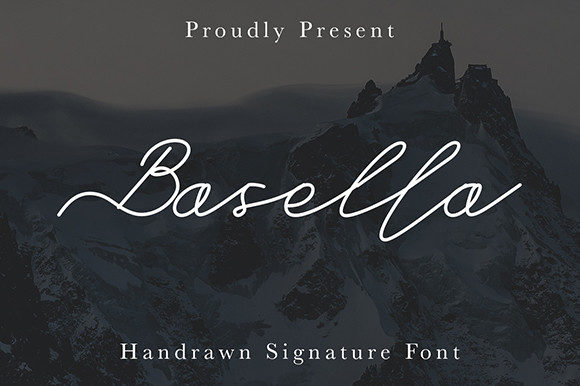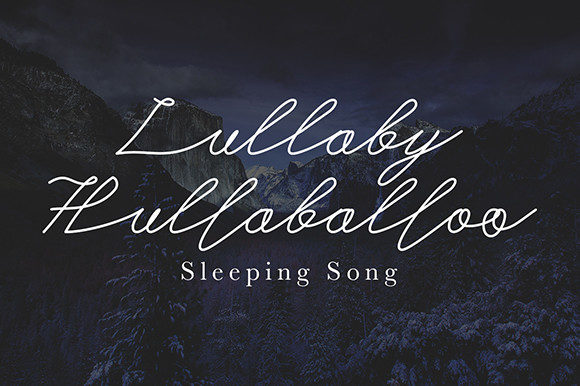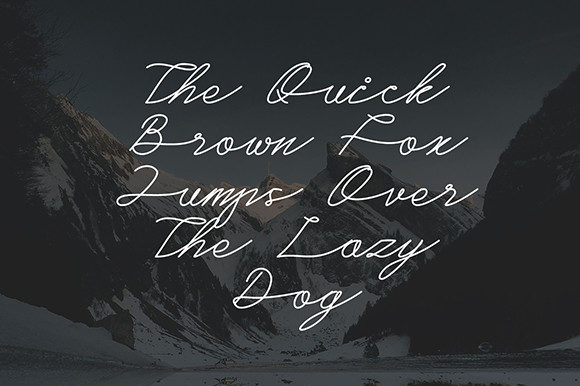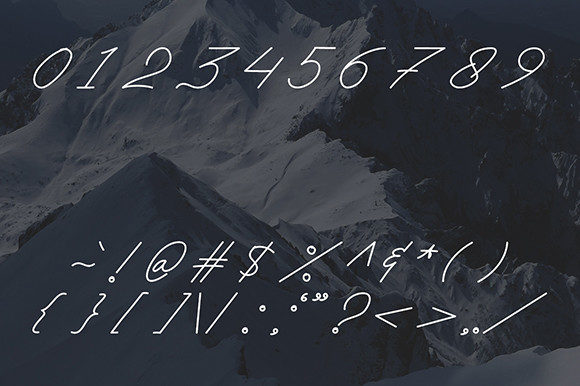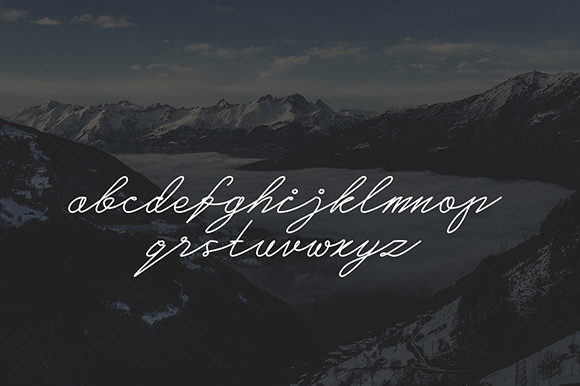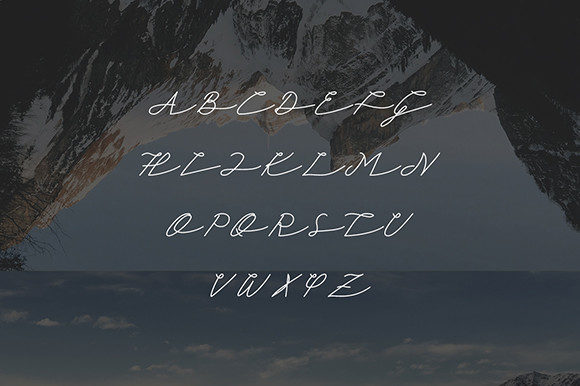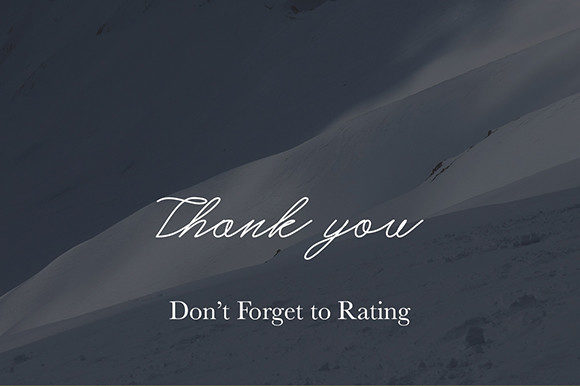
Basella Font
About Basella Font
Basella is a unique and elegant handwritten font. It looks beautiful on a variety of designs requiring a personalized style, such as wedding invitations, thank you cards, weddings, greeting cards, logos and so on.